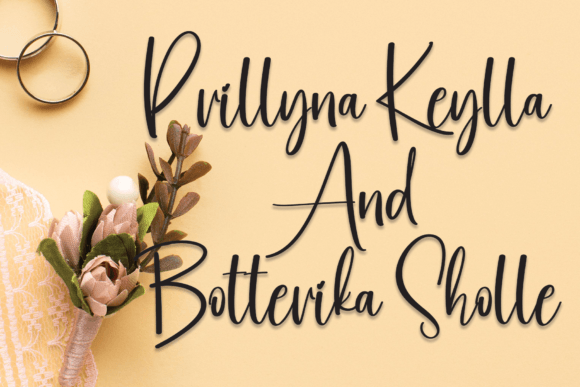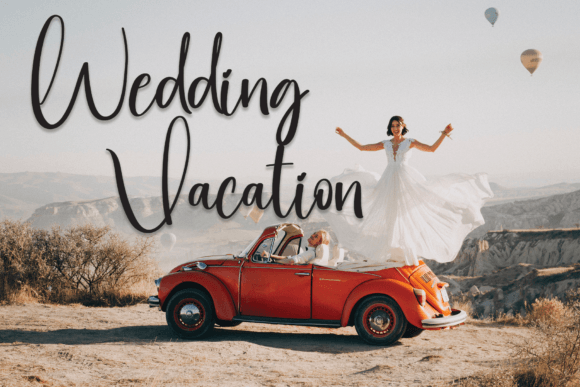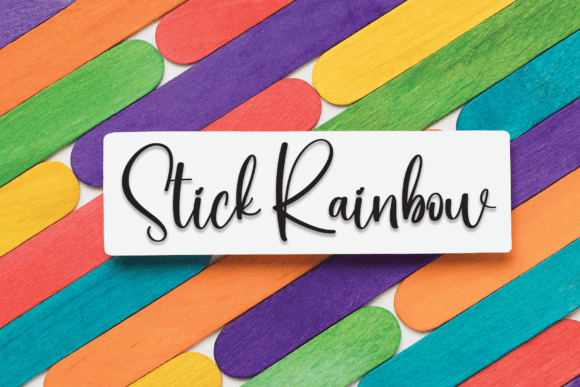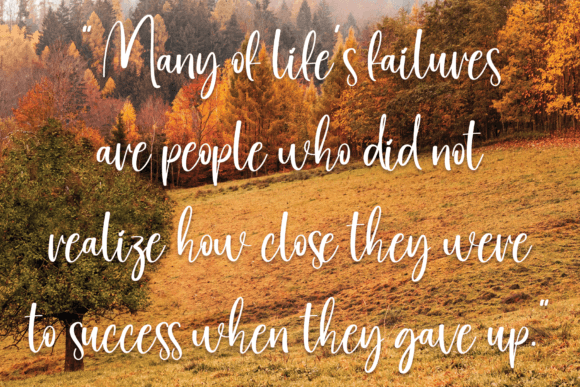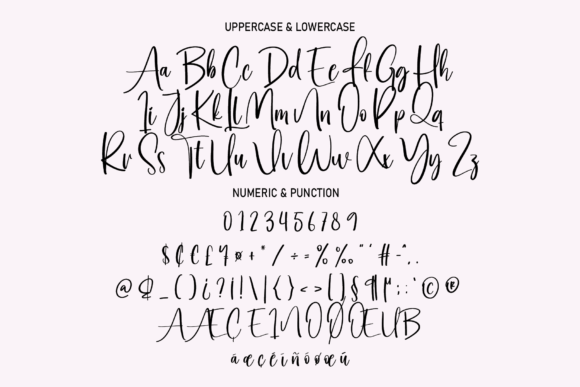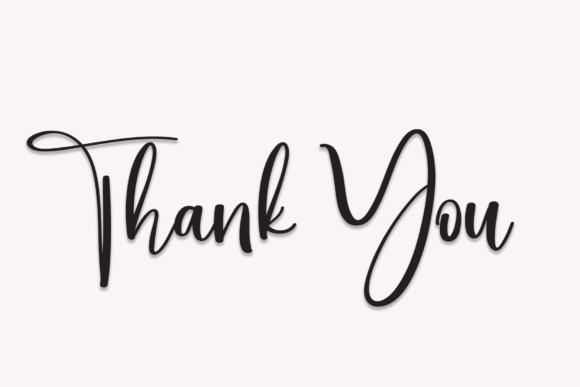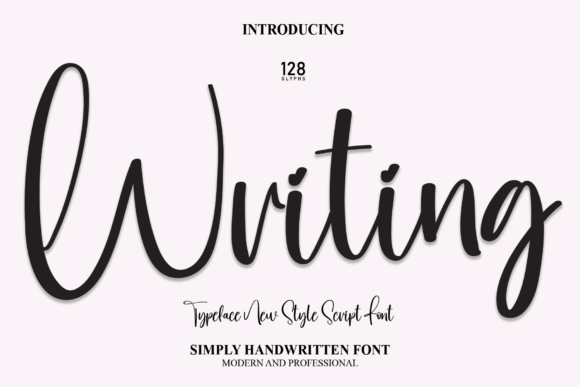
Writing Font
About Writing Font Download
The Writing Font Download is a sweet and romantic handwritten script created to bring elegance and warmth to your projects. With graceful strokes and timeless design, it offers versatility for both personal and professional use. Whether you’re designing wedding invitations, social media graphics, or branding materials, this typeface adds a heartfelt touch that enhances creativity.
A Romantic and Elegant Script Typeface
The Writing script font combines delicate curves with balanced handwritten flow. As a result, it feels charming and approachable. Furthermore, its smooth design adapts to many creative ideas, making it a dependable choice for designers who need both beauty and readability.
Perfect for Wedding Invitations and Stationery
Handwritten fonts shine when used for stationery projects. The Writing Font is perfect for wedding invitations, thank-you cards, birthday greetings, and seasonal notes. Because of its romantic style, every piece feels personal and unique. In addition, it ensures even simple designs carry emotional depth.
Branding and Logo Design with Writing Font
Typography shapes the identity of every brand. The Writing handwritten font is an excellent choice for boutique logos, product packaging, and promotional campaigns. Its elegant handwritten character communicates creativity and trust. Therefore, it works especially well for lifestyle, fashion, and artisanal brands.
Posters, Quotes, and Display Designs
The Writing Font Download also performs beautifully in posters, magazines, book covers, and inspirational quotes. Its natural handwritten look maintains clarity while adding flair. Consequently, it is a perfect choice for designers who want to balance elegance with readability.
In today’s online-first world, fonts must adapt across platforms. The Writing typeface integrates seamlessly into Instagram graphics, Pinterest boards, YouTube thumbnails, and blogs. Because of its handwritten flow, it makes digital projects stylish, memorable, and visually engaging.
Why Designers Choose Writing Typeface
Designers love fonts that mix elegance with versatility. The Writing handwritten script provides charm while staying practical. Moreover, its timeless handwritten look ensures it remains relevant for future creative projects.
Add Romantic Style to Your Projects Today